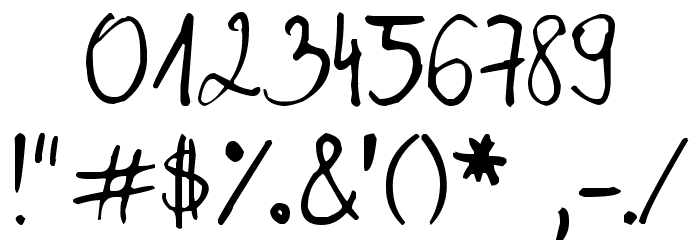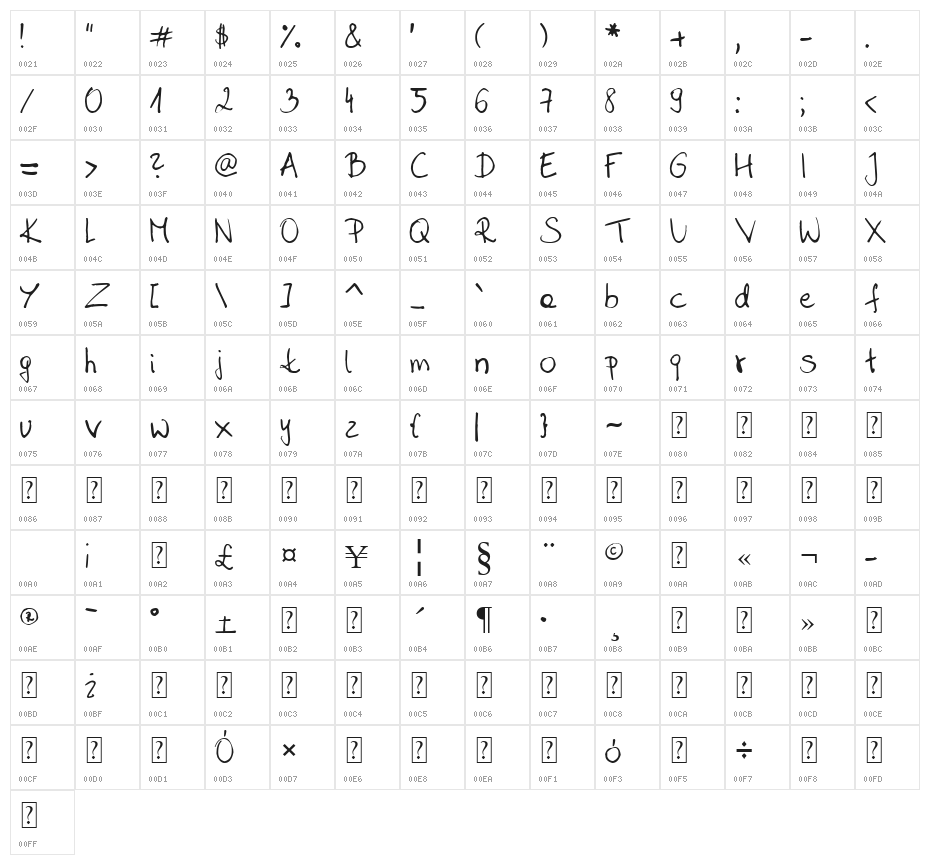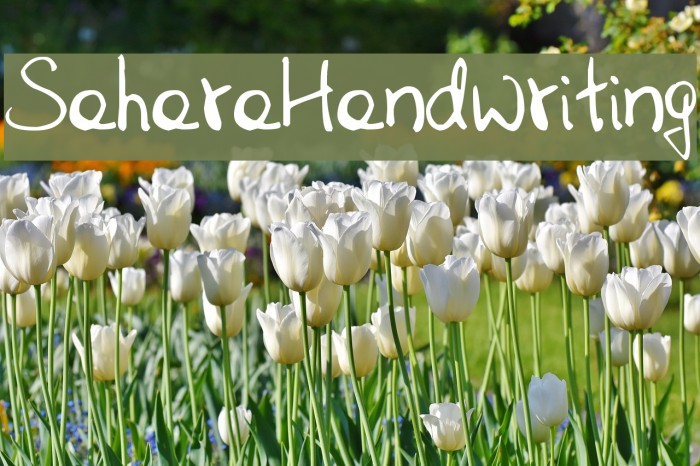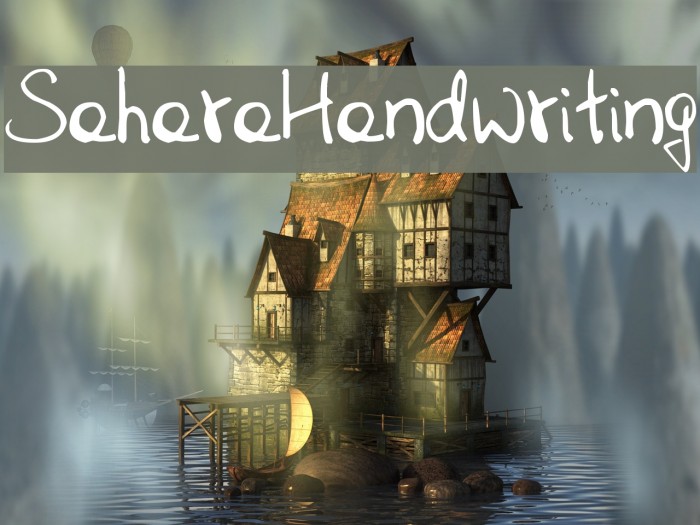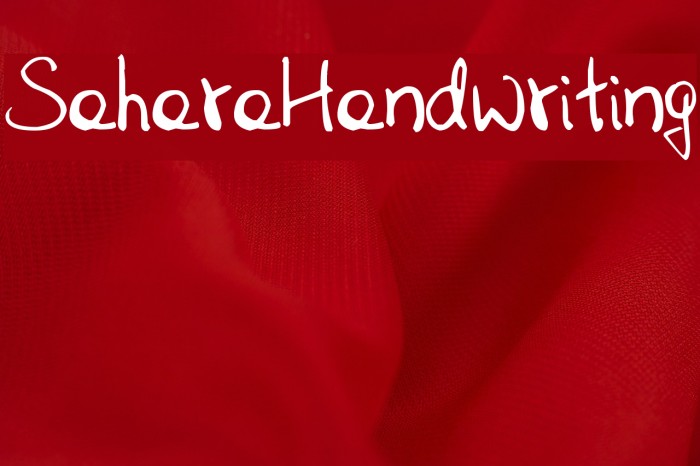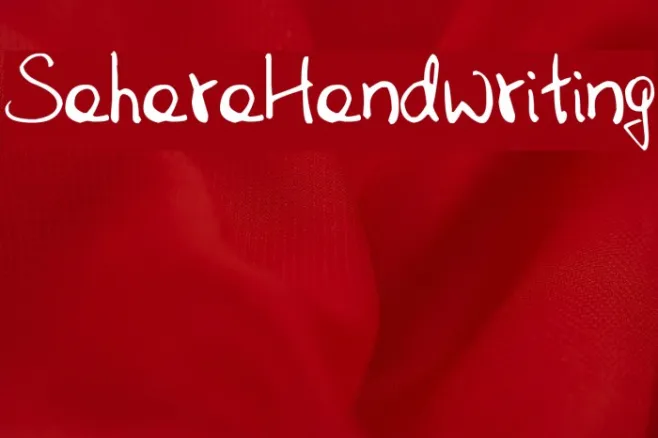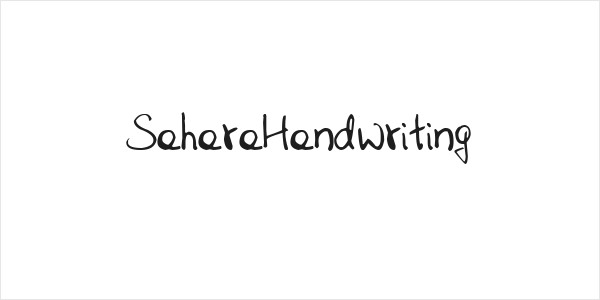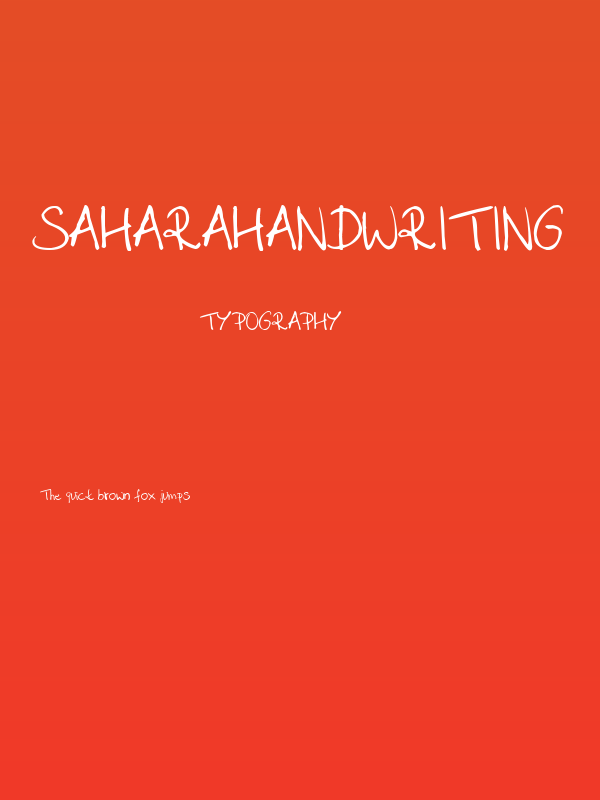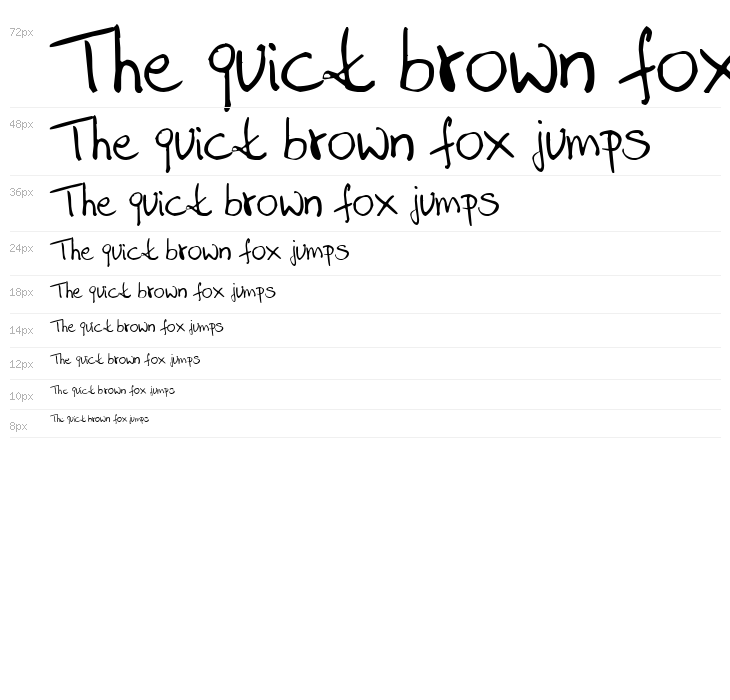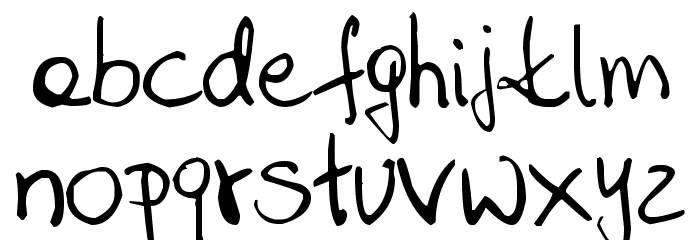
SaharaHandwriting Font
SaharaHandwriting Description
This font exudes a playful and casual handwritten style, characterized by its fluid and dynamic strokes. The letters vary in size and angle, giving it an authentic, personal touch reminiscent of natural handwriting. The uppercase letters are bold and slightly irregular, while the lowercase letters maintain a consistent flow with occasional loops and curves. Numbers are clear and distinct, matching the overall informal aesthetic. Special characters are creatively integrated, maintaining the font's whimsical nature. This font is perfect for projects that require a personal, approachable feel.